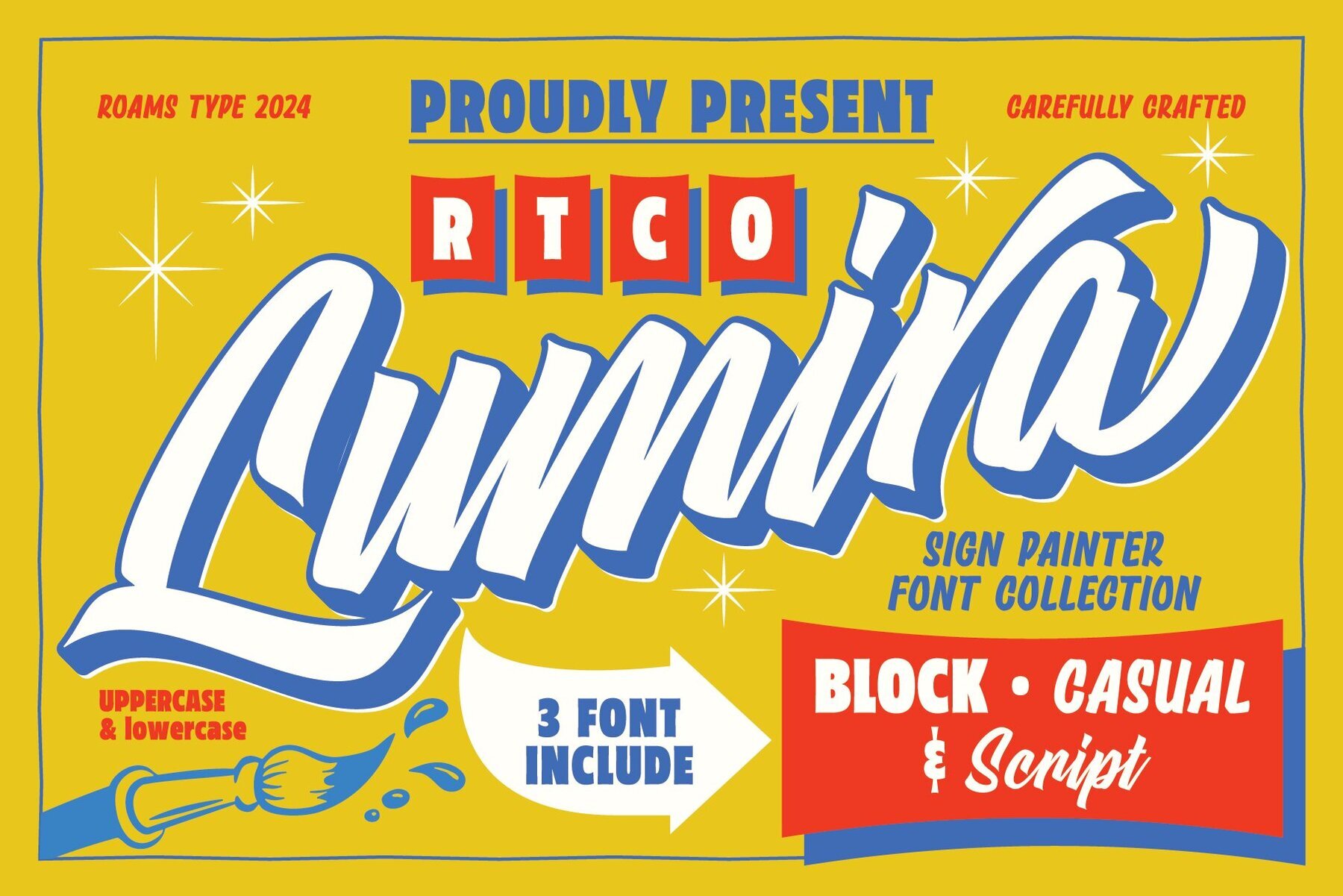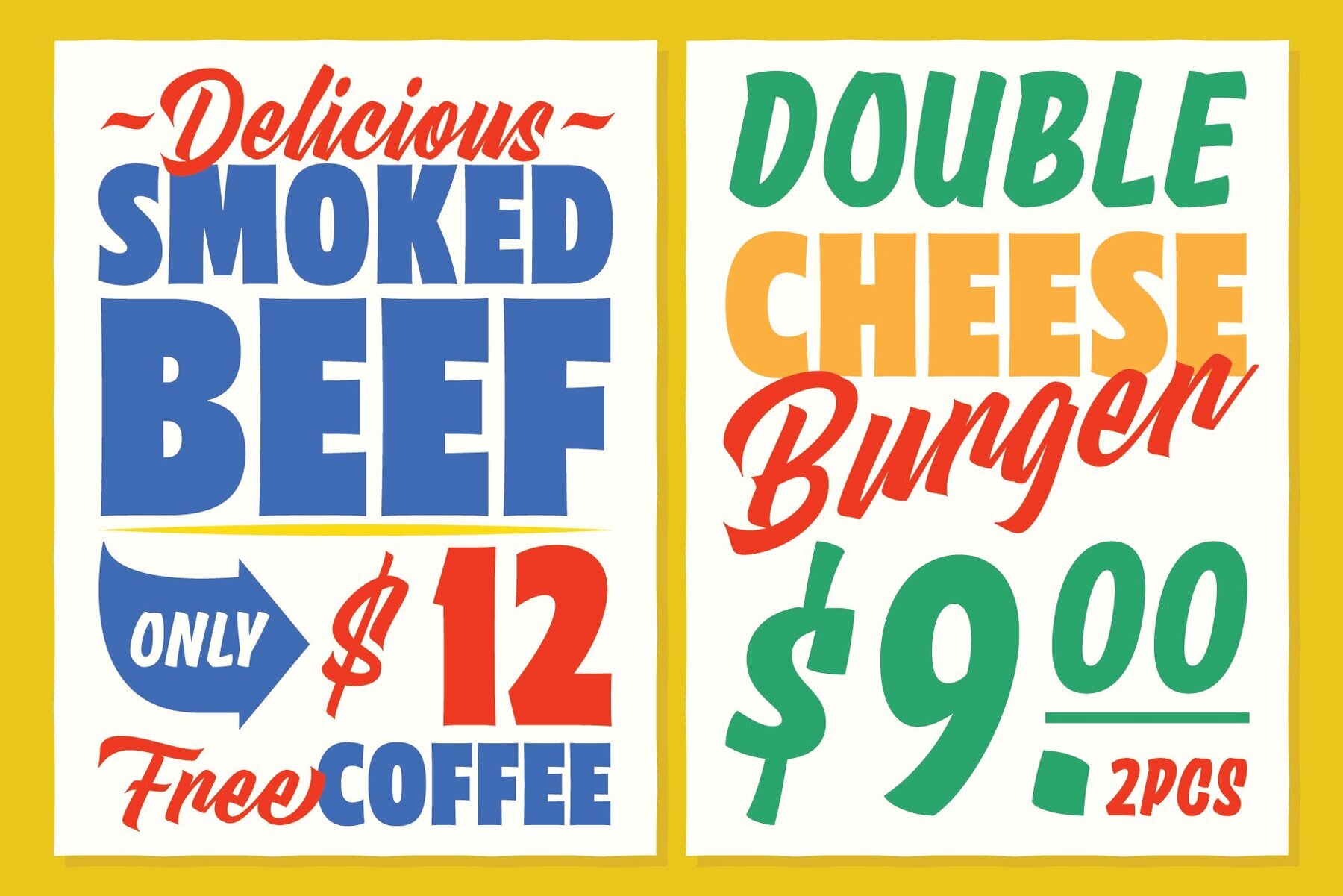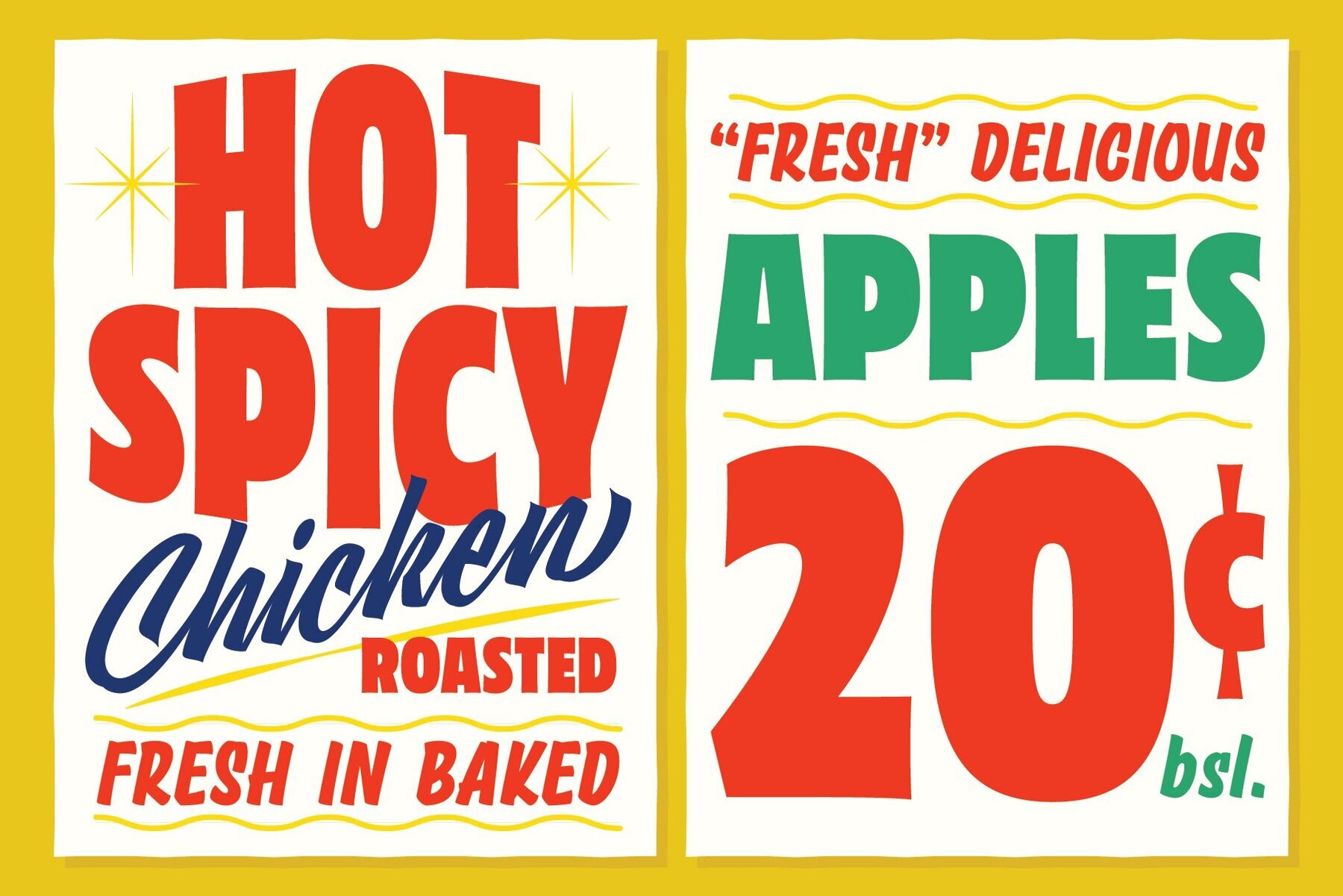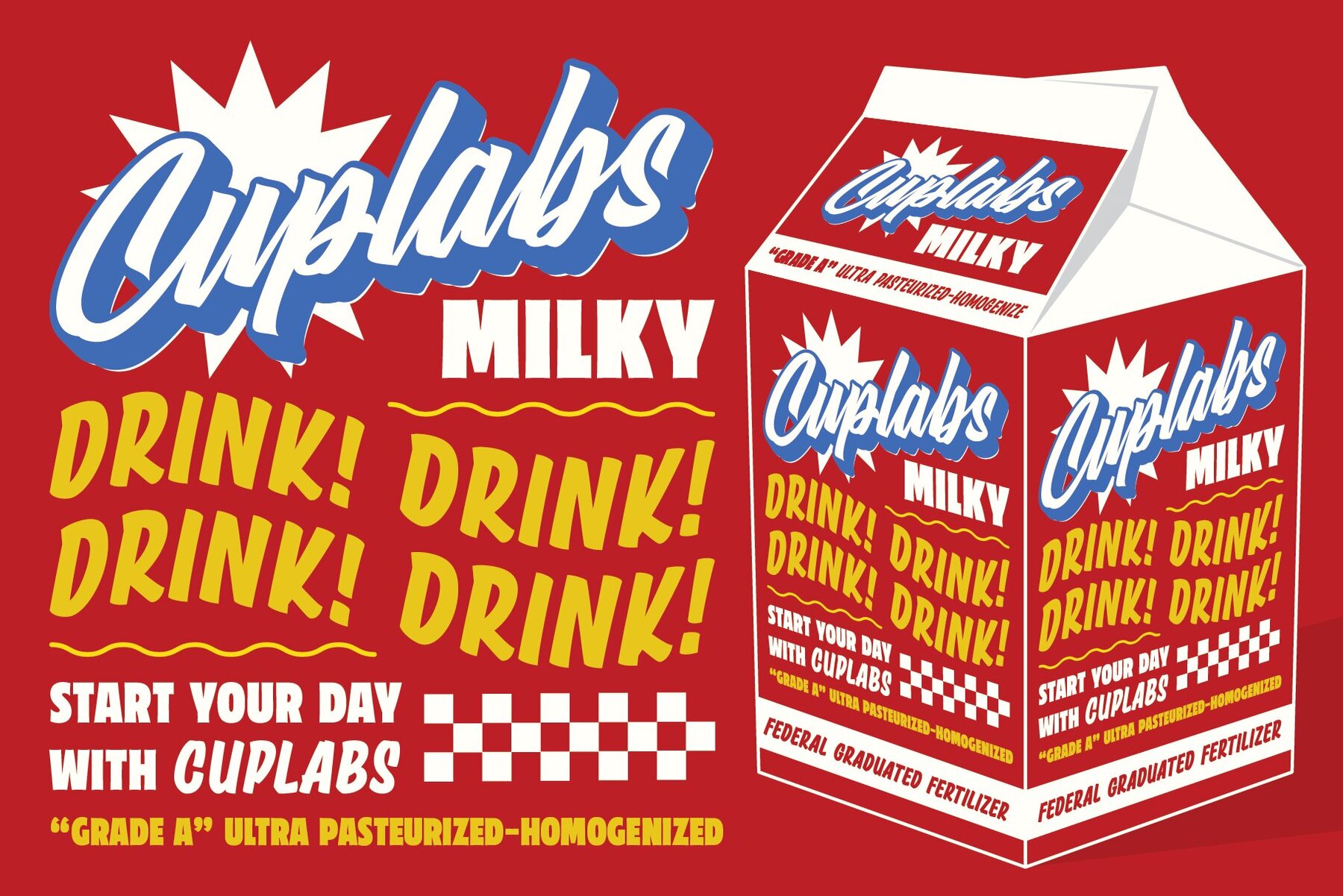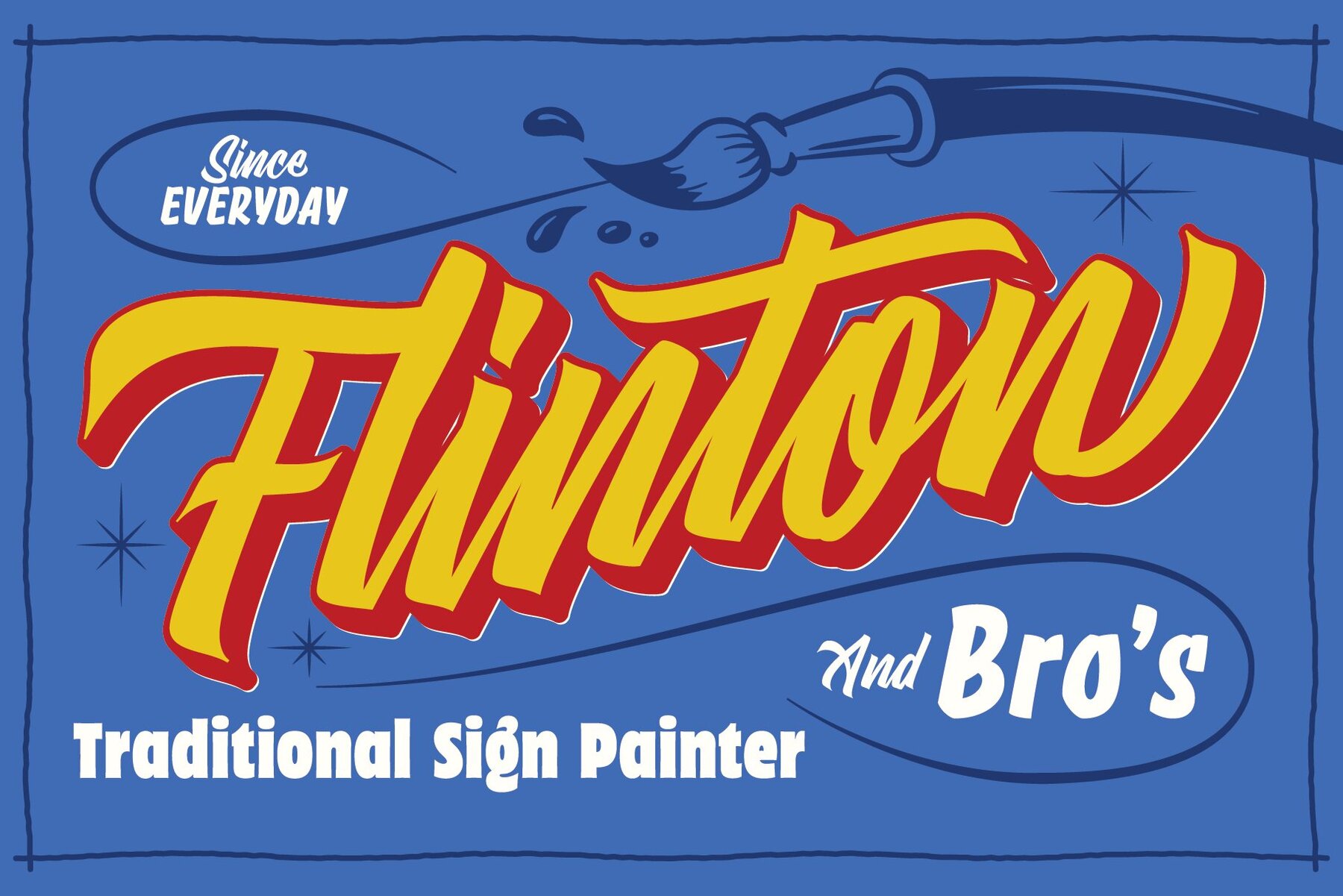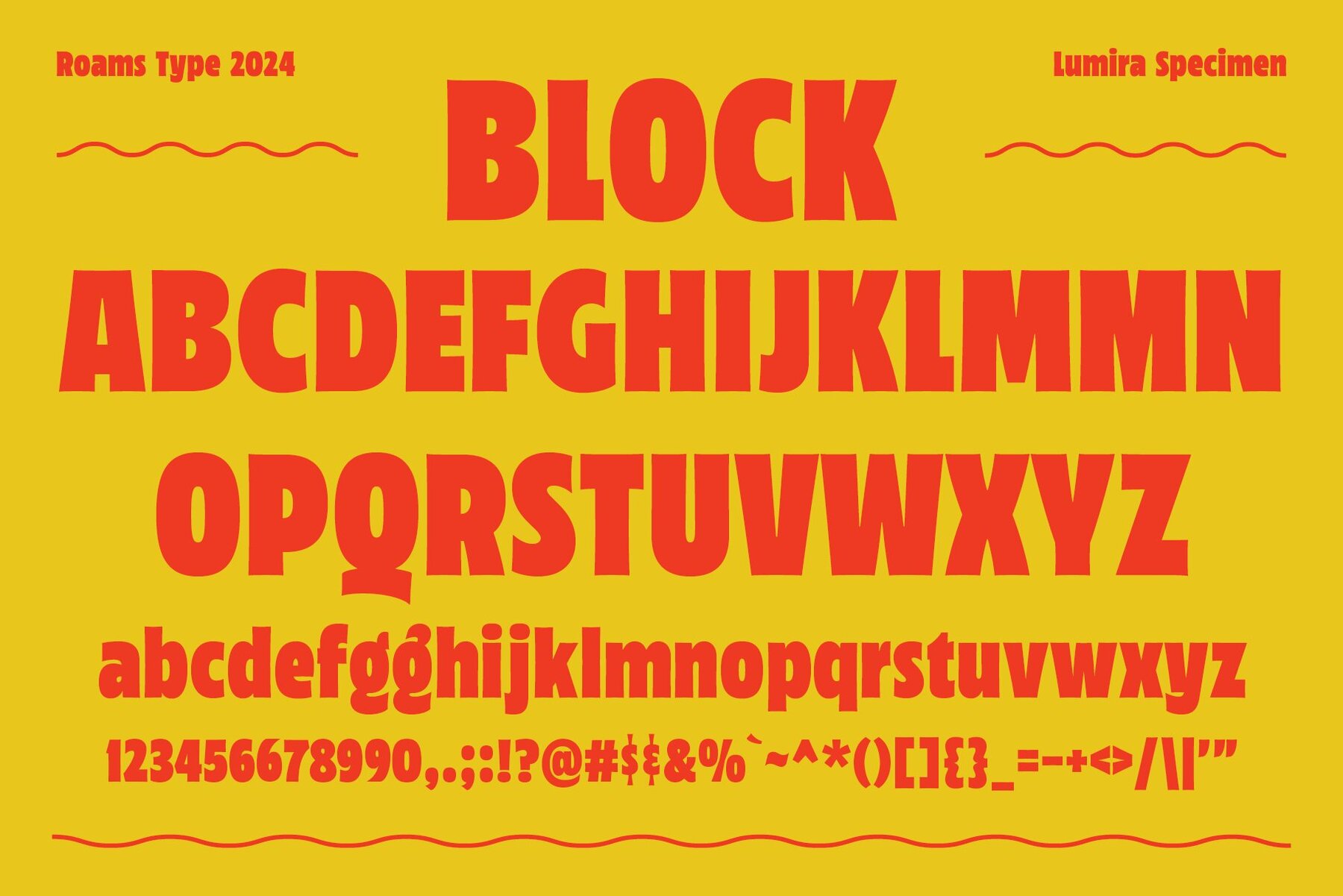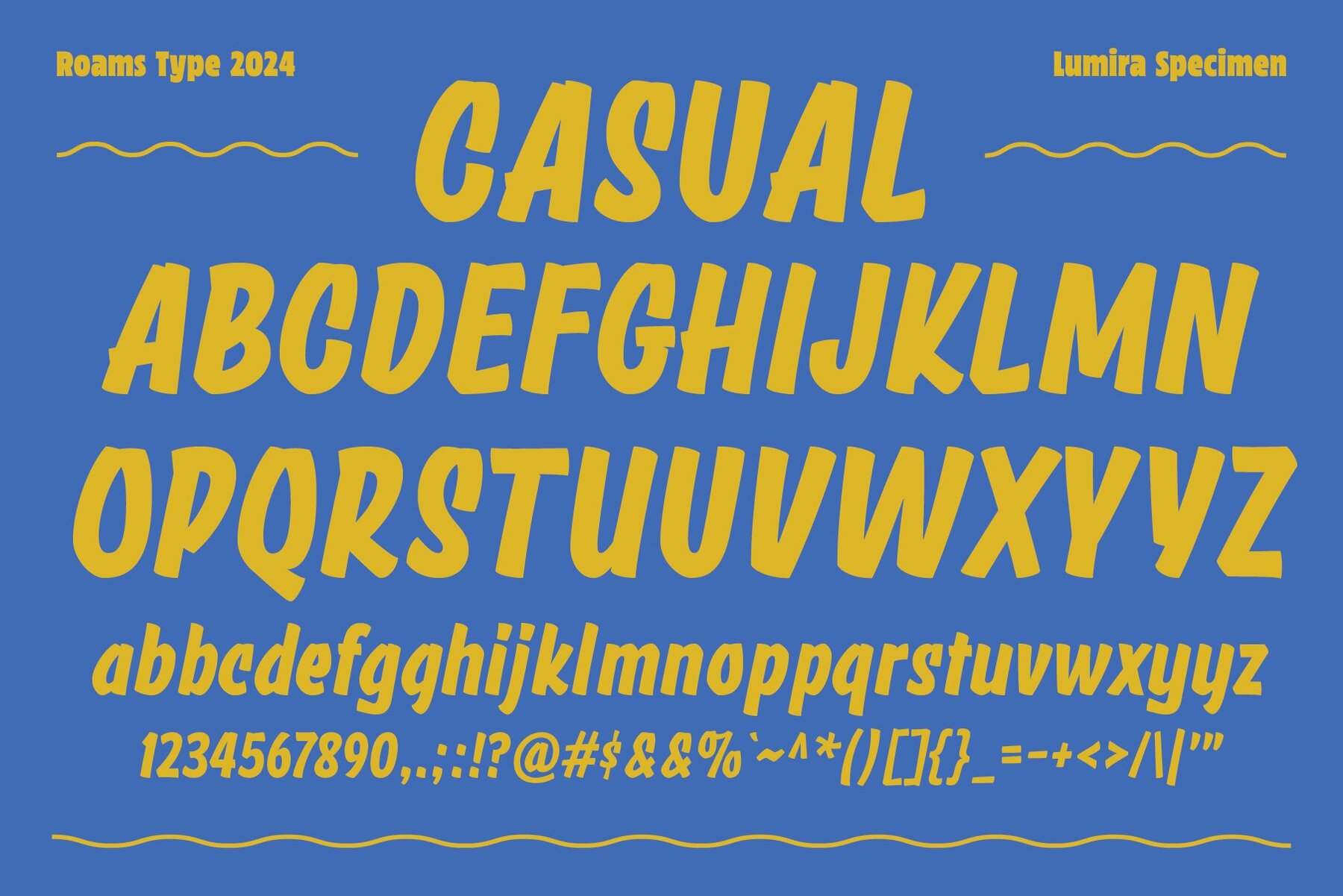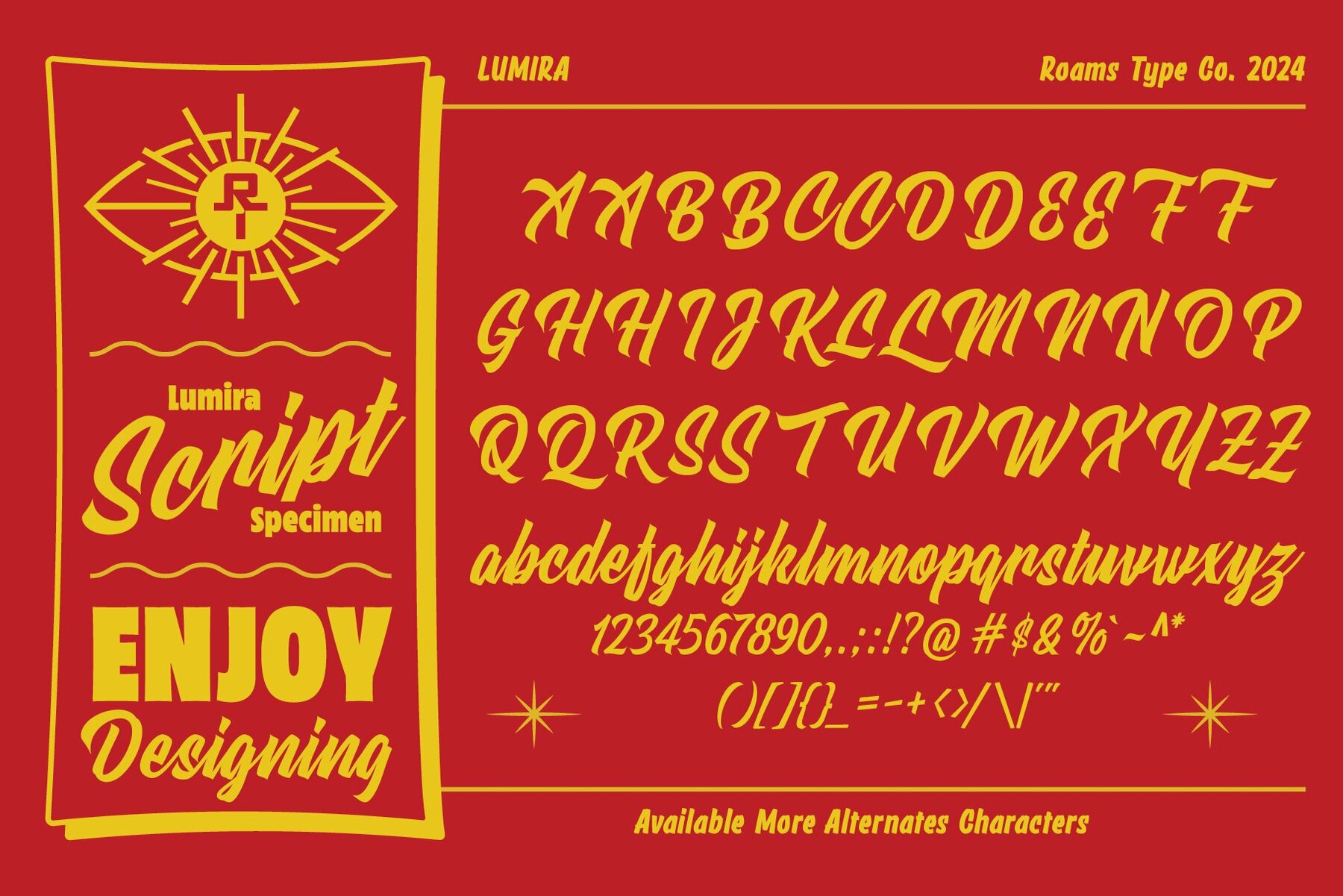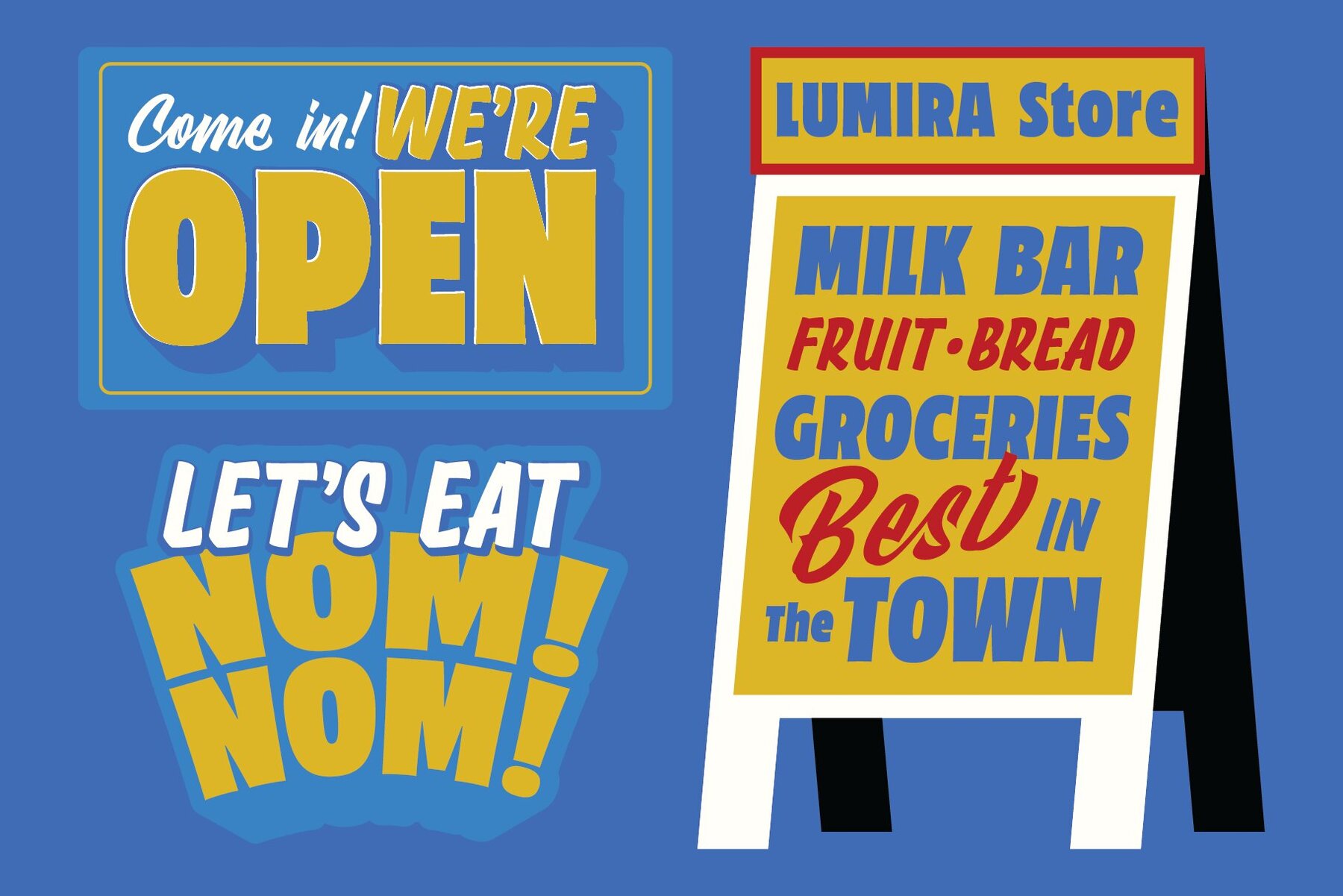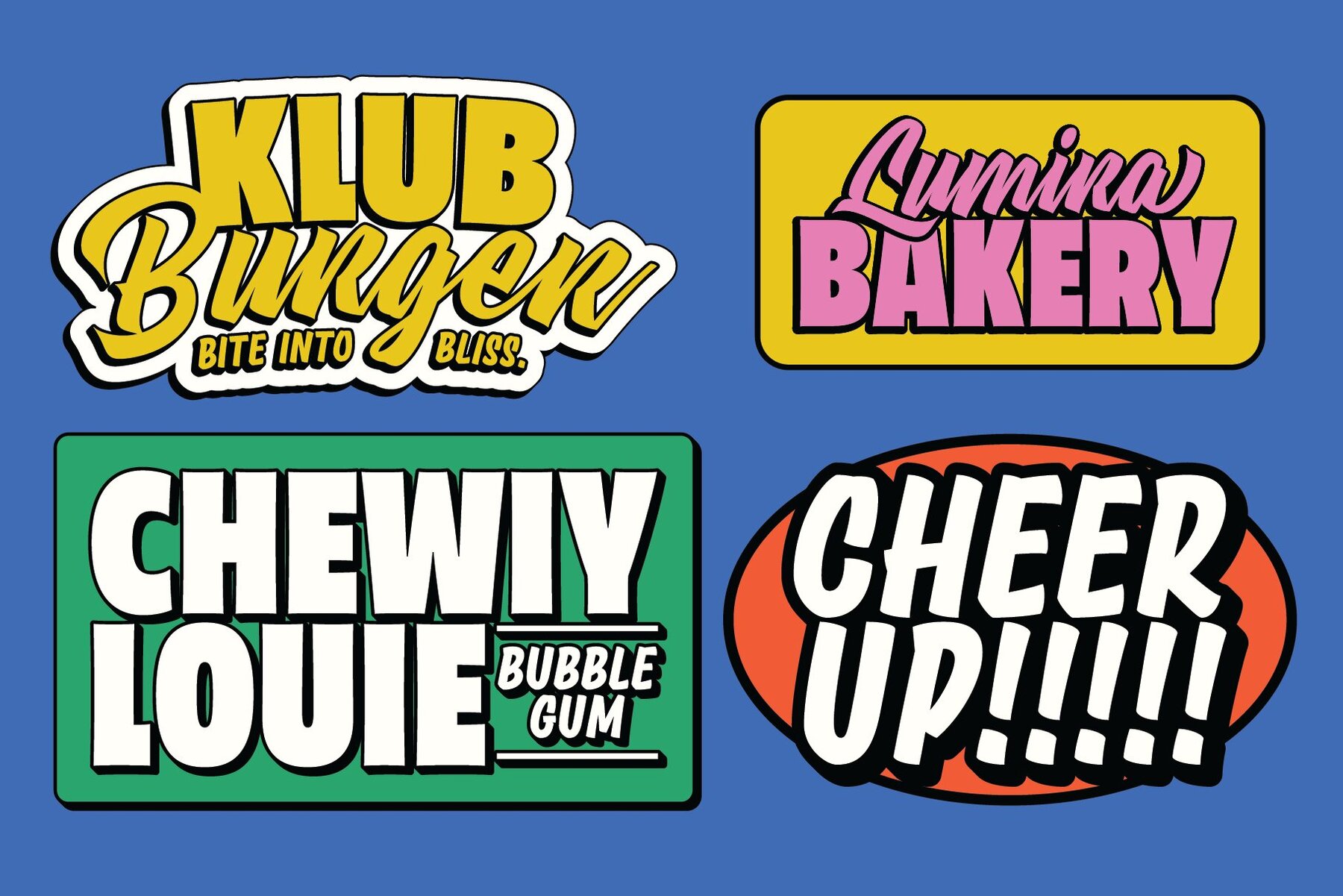
Lumira Font
Lumira Block
Lumira Casual
Lumira Script
Lumira is a versatile font inspired by the aesthetics of vintage sign painters and traditional grocery store signs. With its thick and decorative qualities, Lumira adds a dynamic flair to any branding venture or store signage. It offers three distinct styles: Block, Casual, and Script, each catering to different design needs.
Ideal for graphic design projects such as logotypes, merchandise design, and printed stickers, Lumira provides flexibility with its comprehensive set of features. The font includes both uppercase and lowercase characters, numerals, and punctuation, along with PUA encoding for easy access to its unique glyphs. Lumira is the perfect choice for creators looking to infuse their projects with a touch of nostalgic charm and bold design elements.